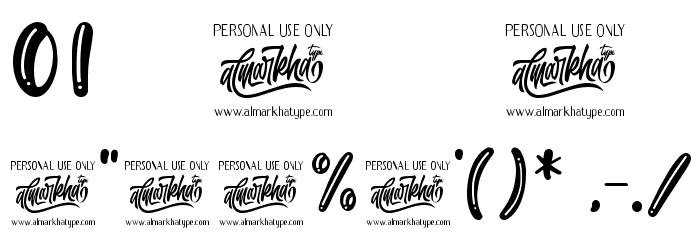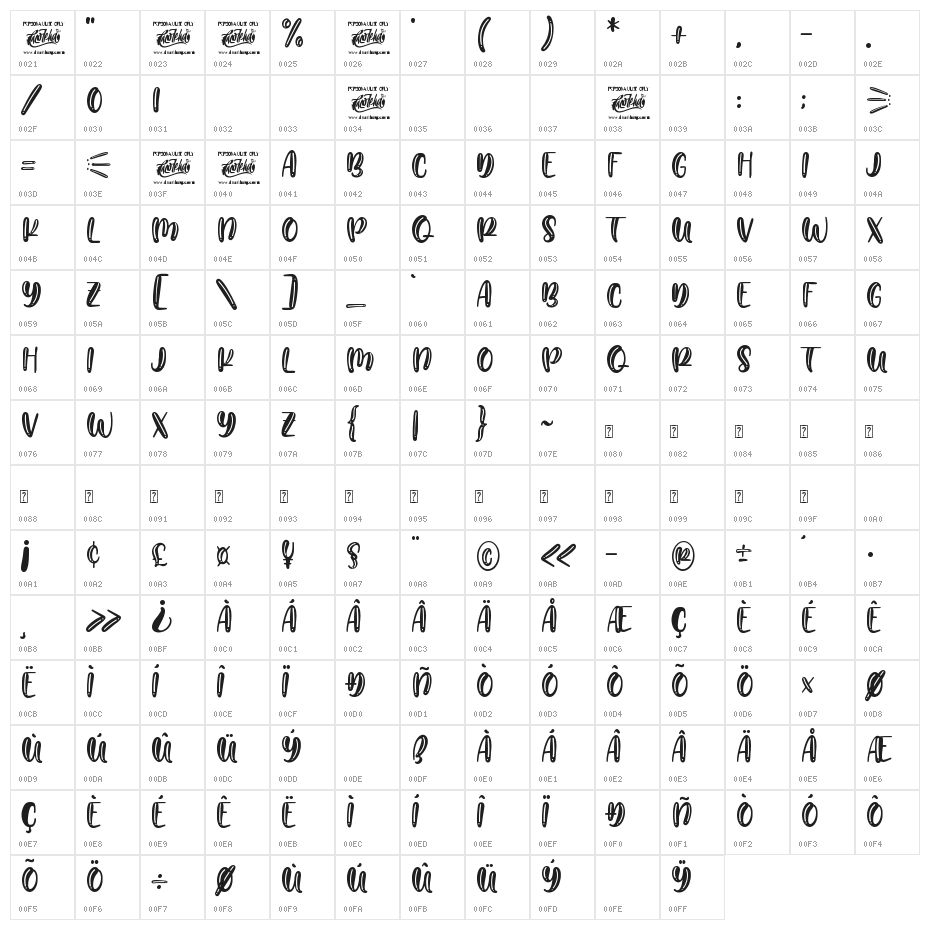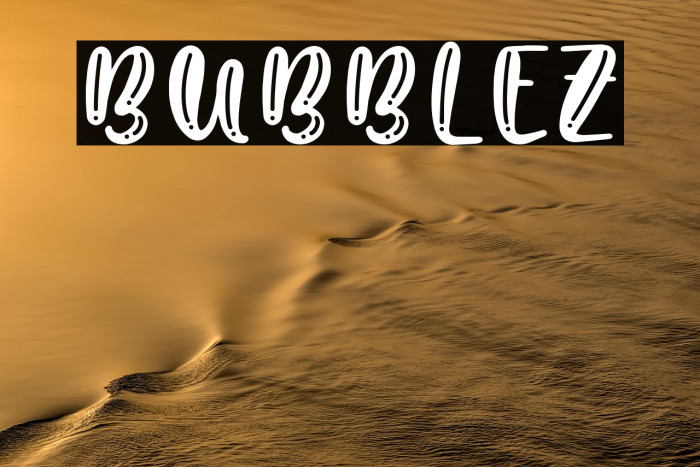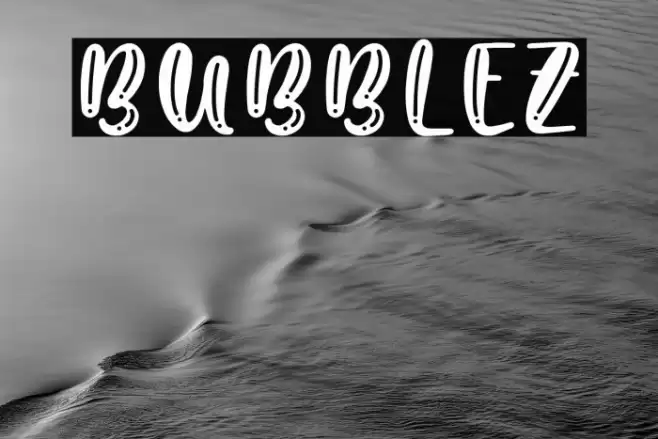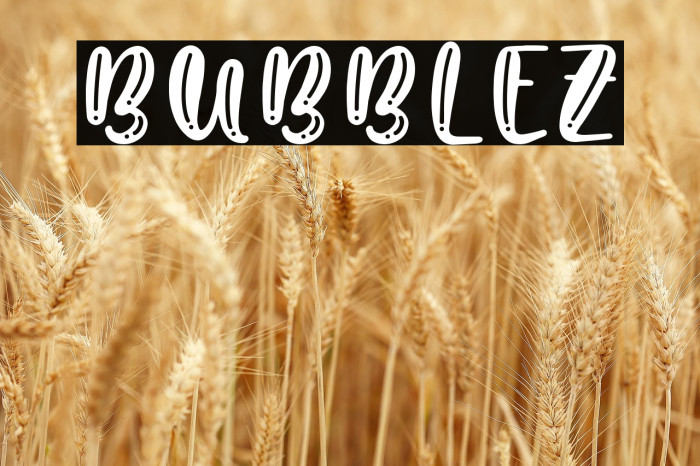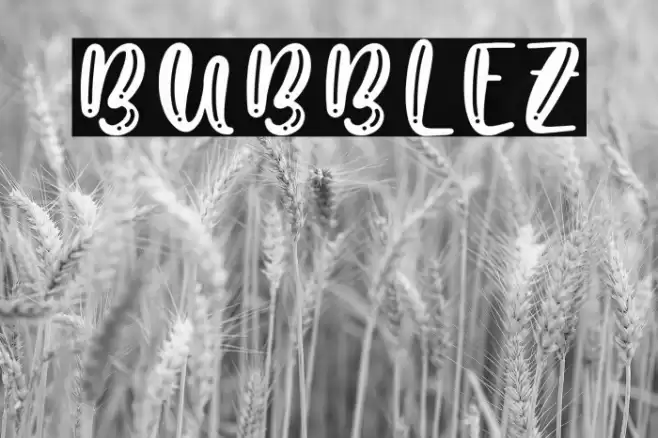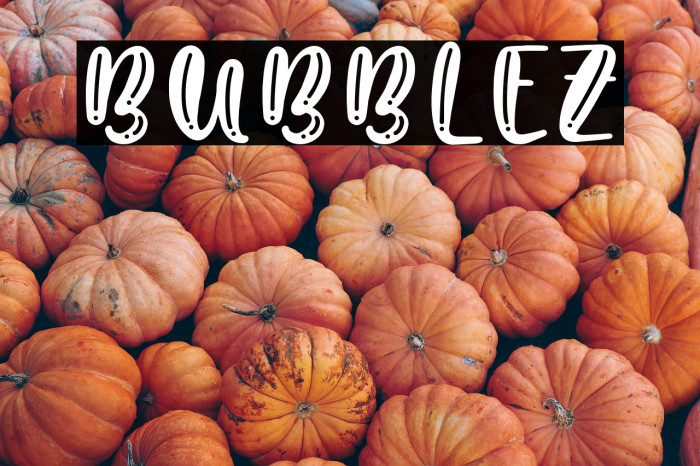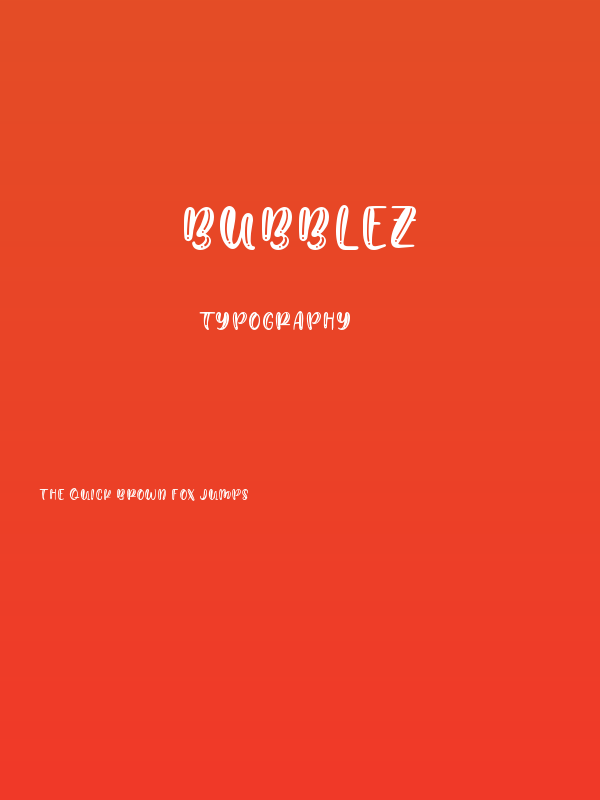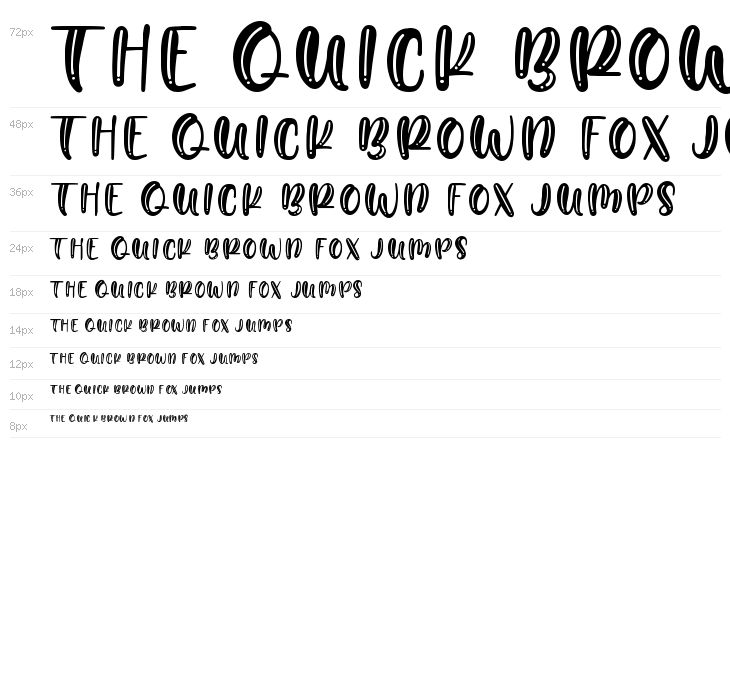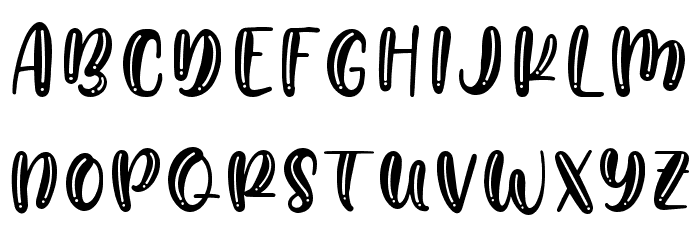
Bubblez Font
Bubblez Description
This playful and bold font features a bubbly, rounded style that exudes a sense of fun and creativity. The letters are thick and have a consistent stroke width, giving them a strong presence on the page. The rounded edges and smooth curves create a friendly and approachable look, making it ideal for projects that require a touch of whimsy. The font maintains a uniform height across both uppercase and lowercase letters, ensuring readability while adding a unique flair. The numbers and special characters are designed to match the playful aesthetic, making them suitable for a variety of design needs.